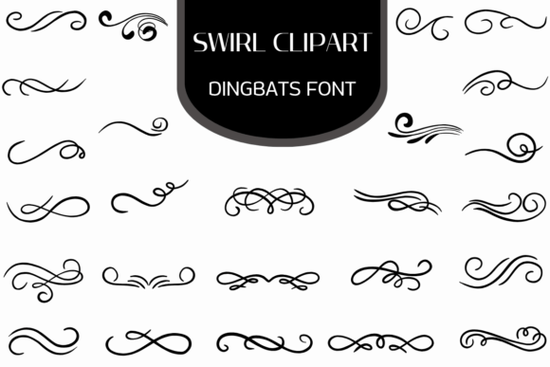
If you work with invitations, certificates, printables, or any project that needs a decorative touch, the Swirl Clipart Font is a dingbats typeface worth knowing about. Unlike regular fonts that give you letters and numbers, this one is packed entirely with hand-drawn swirl designs, flourishes, and ornamental clipart you can type out like any other font. It's a practical shortcut for anyone who wants elegant decorative elements without spending hours in design software.
What Exactly Is a Swirl Clipart Dingbats Font?
A dingbats font replaces standard keyboard characters with graphic symbols. When you install this font and press a letter key, you don't get a letter you get a beautifully drawn swirl or flourish instead. Think of it as a clipart library hidden inside a font file.
The Swirl Clipart Dingbats Font contains ornamental glyphs designed as vector images. That means every swirl, curl, and decorative divider scales cleanly from tiny thumbnails to large-format prints without getting blurry or pixelated. For designers who deal with different output sizes from business cards to wall art this matters a lot.
Each character in the font maps to a unique swirl design, so you can mix and match elements just by switching keys. No need to open a separate clipart folder or drag individual files onto your canvas.
How Can I Use Swirl Clipart in My Projects?
This type of decorative font fits into a surprisingly wide range of projects. Here are some common ways creative professionals and hobbyists put it to work:
- Wedding invitations and event stationery frame the text with elegant corner flourishes or add dividers between sections
- Certificates and awards use ornate borders and accents that give a polished, formal look
- Scrapbooking and journal decoration drop in swirl elements as page accents without extra software
- Social media graphics and blog headers add subtle decorative touches to quote images or promotional posts
- Print-on-demand designs incorporate swirl frames and dividers into T-shirt art, mugs, or tote bag designs
- Brand collateral use ornamental details on menus, price lists, letterheads, and business cards
Because the elements are vector-based, they reproduce cleanly on both digital screens and printed materials. You won't need to worry about resolution issues when sending files to a print shop.
Is This Font Right for Commercial Projects?
Why Do Vector-Based Clipart Fonts Matter?
Not all dingbats fonts are created equal. Some use rasterized images embedded in the font file, which limits how far you can scale them before quality drops. Vector-based fonts avoid this problem entirely.
Here's a quick comparison:
- Vector dingbats scale to any size, clean edges at every resolution, smaller file sizes
- Raster dingbats look fine at one size but can blur or pixelate when enlarged
The Swirl Clipart Dingbats Font uses vector outlines, so whether you're printing a small header ornament on a recipe card or a large decorative frame for a poster, the lines stay crisp. This makes it a solid choice for both screen-based and print design work.
Most dingbats fonts come with a reference guide or character map showing which key produces which design. Keep this handy while you work so you don't have to guess.
Quick Tips for Getting the Most Out of Decorative Fonts
- Pair sparingly one or two swirl elements per design keeps things elegant rather than cluttered
- Adjust tracking and kerning spacing between decorative characters often needs tweaking for a balanced look
- Convert to outlines before sending files to print to avoid font substitution issues
- Layer swirl elements behind or around text for a composed, intentional layout